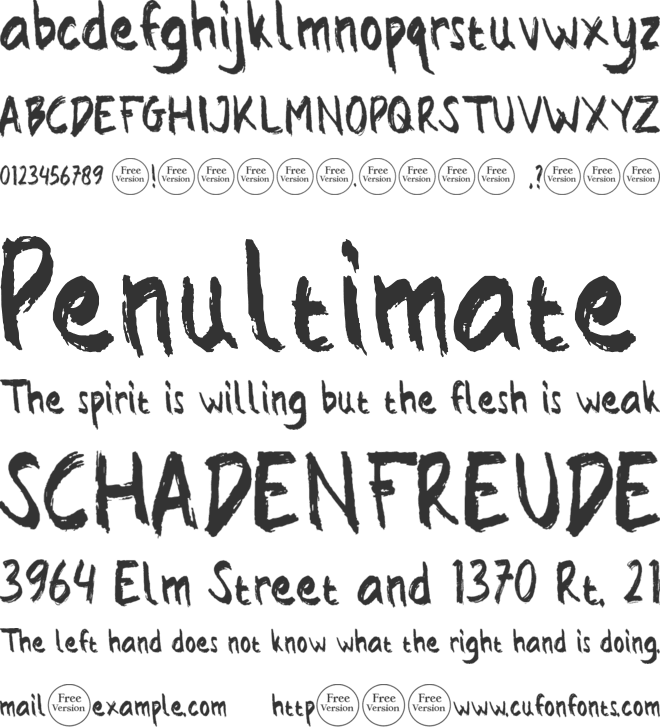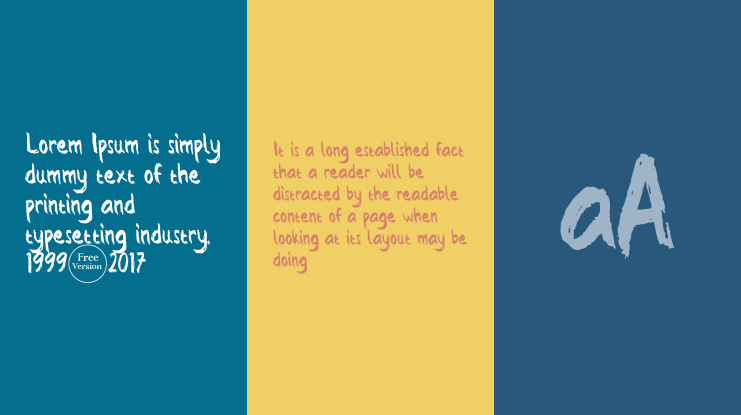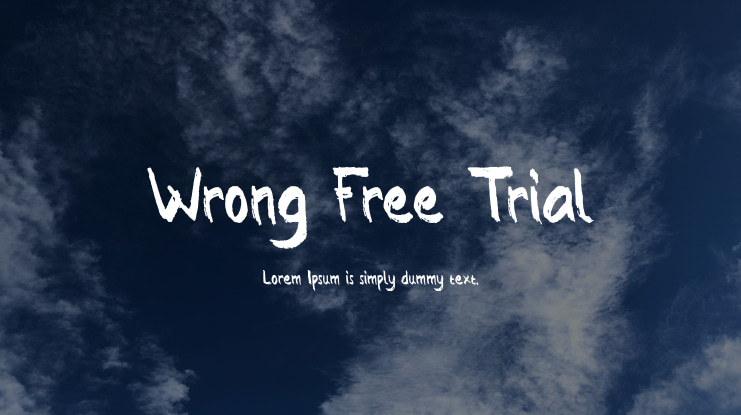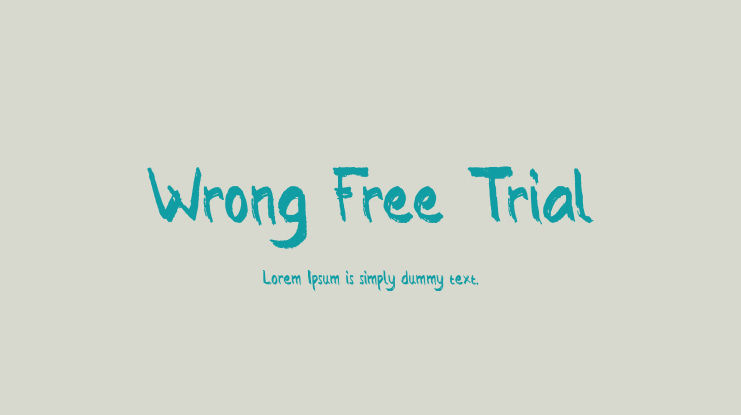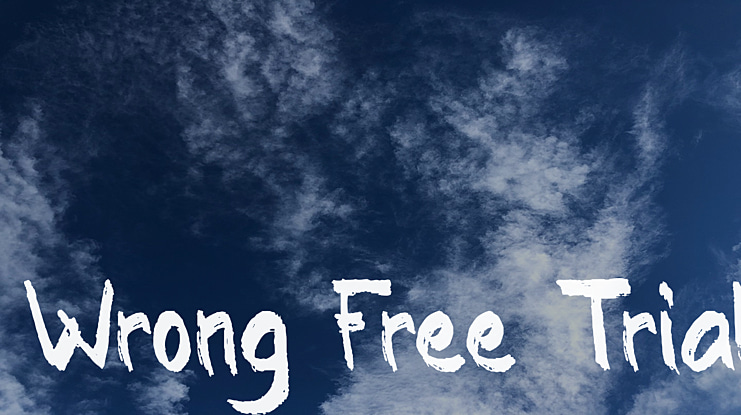
Wrong Free Trial Font
You’ve been looking for a ‘spine-chilling’ font? One which will provide your works, clients or whatever with an instant feel of spook with brush style? This Wrong gothic brush font is everything which you’ve been dreaming of and much more.
It doesn’t matter if you’re creating Game Horror, T-Shirts or crafts which are meant to be scary – this font will provide any project with extra spook, gothic, brush, fright and feels.